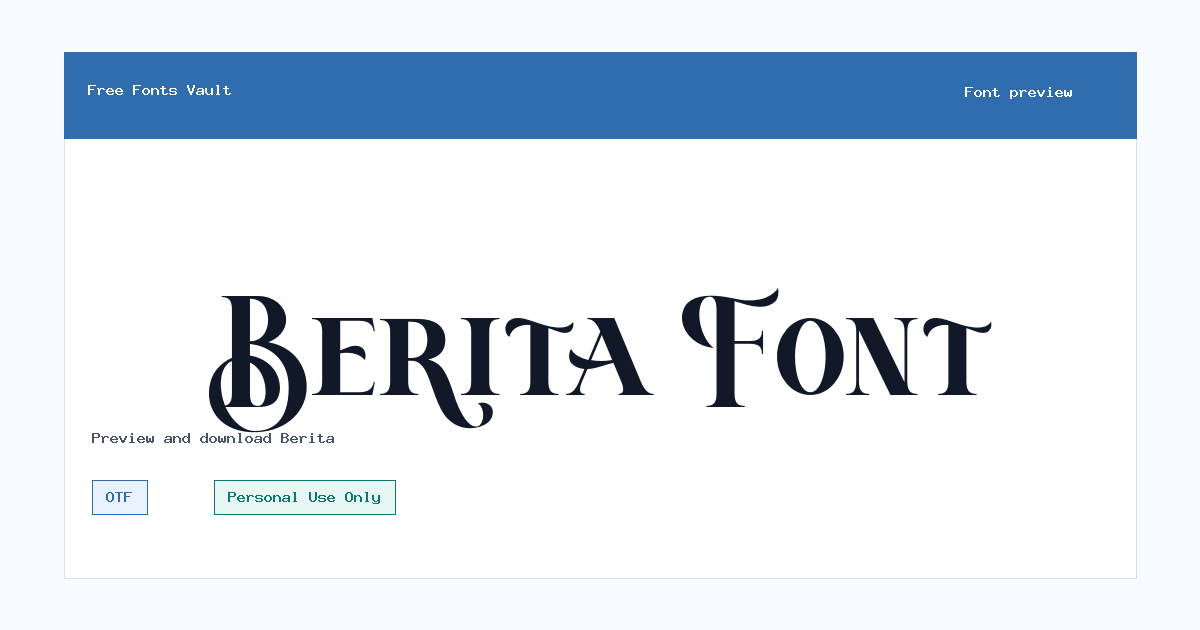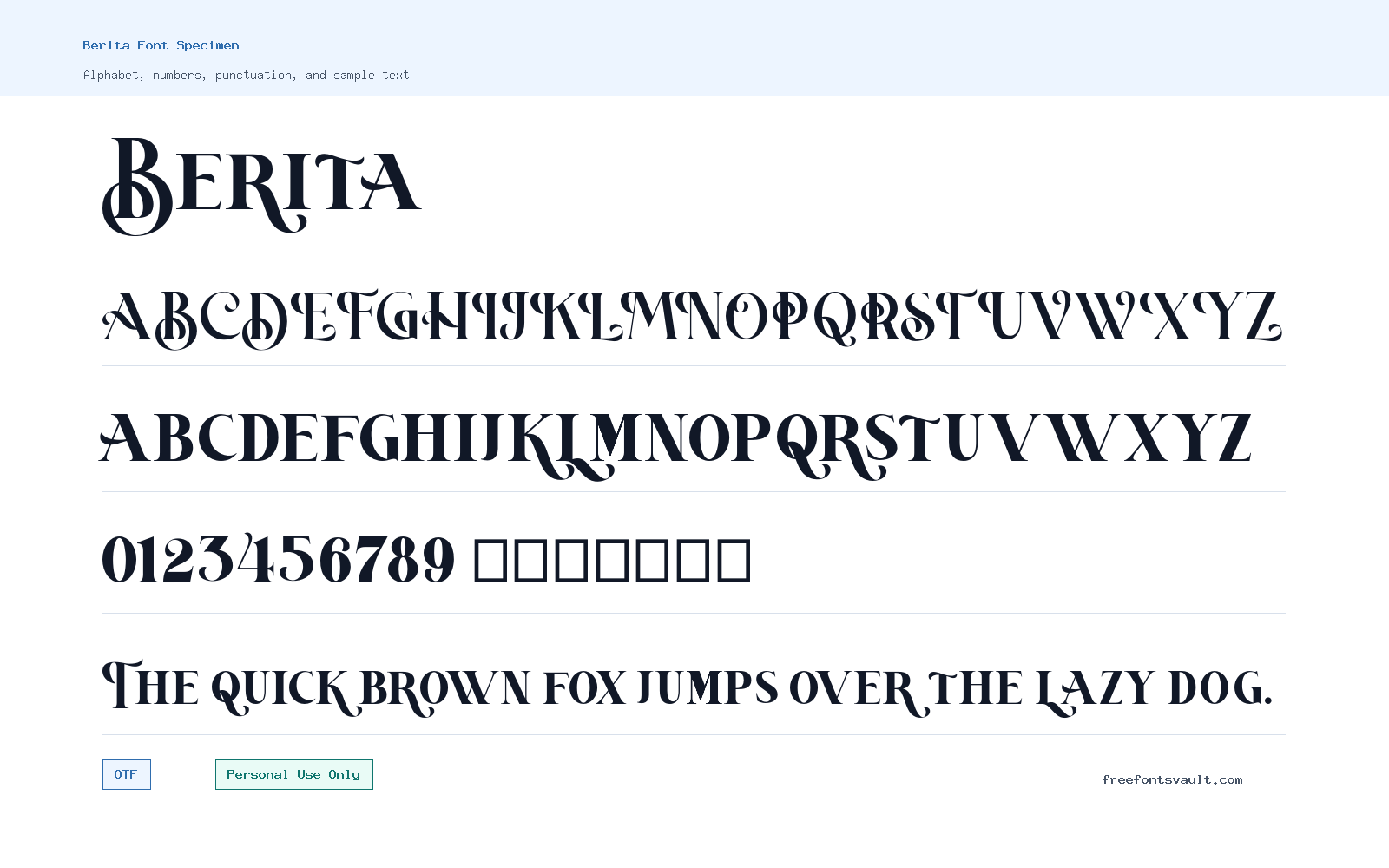
Berita
Berita is a serif font with a polished, editorial feel. It works best when you use it where the letter shapes can be seen clearly, such as titles, headings, quote graphics, invitations, and short display text.
Berita has the kind of serif structure that suits refined layouts without needing heavy decoration. The Regular style is a good starting point for testing elegant headlines, magazine-style text blocks, stationery mockups, social graphics, and brand concept drafts. Because the download is an OTF file in a normal 400 weight, it should be easy to test in common design apps that support OpenType fonts.
For the best result, try Berita first in the preview box with the exact words you plan to use. Serif fonts can change character depending on letter combinations, punctuation, and capitalization, so test names, short titles, and longer phrases before committing to a layout. Keep it at larger sizes for the clearest effect, and pair it with a quiet sans serif if you need body copy, captions, or supporting information.
• Serif display style suited to short, polished text settings
• Useful for testing headings, titles, invitations, and social graphics
• Best used at medium to large sizes where the serif details stay clear
• Editorial-style headings and magazine mockups
• Invitation cards, stationery, and personal event designs
• Quote graphics, Pinterest pins, and social media titles
• Logo drafts or branding concepts for personal experiments
• Short website hero text, posters, and cover-style layouts
Use Berita for short text first, then check spacing and readability in your final size. If your design includes paragraphs or small captions, pair it with a simple sans serif and let Berita handle the title or accent text.
What style of font is Berita?
Berita is listed as a serif font. It is best tested in display settings such as headings, invitations, posters, and short graphic text.
Who made Berita?